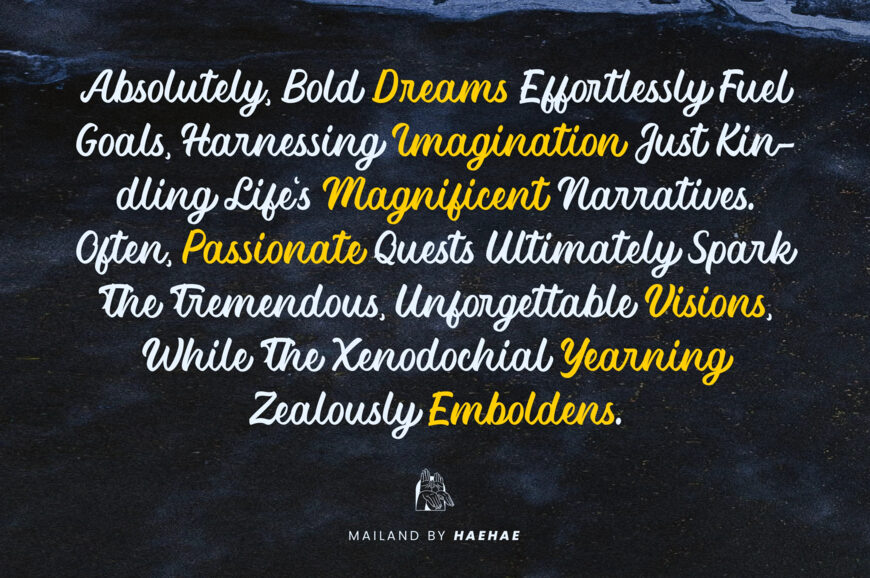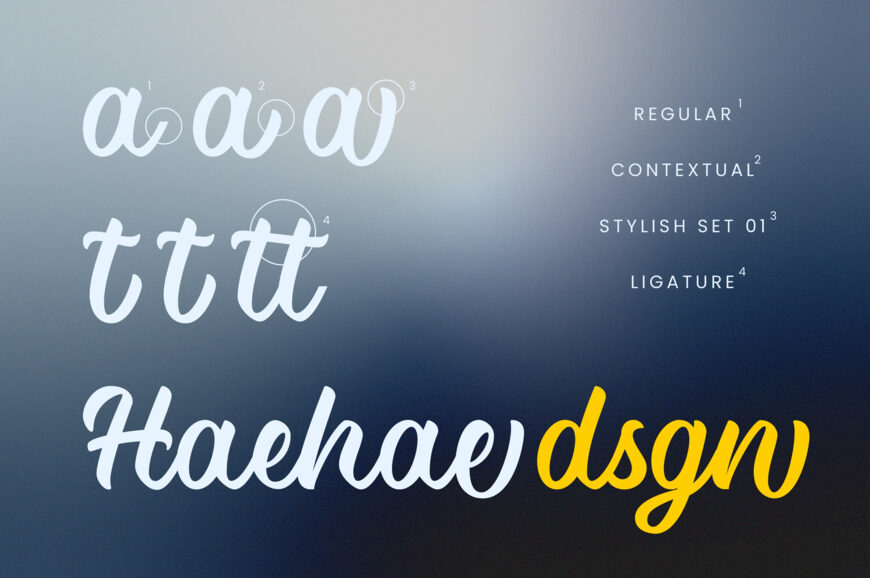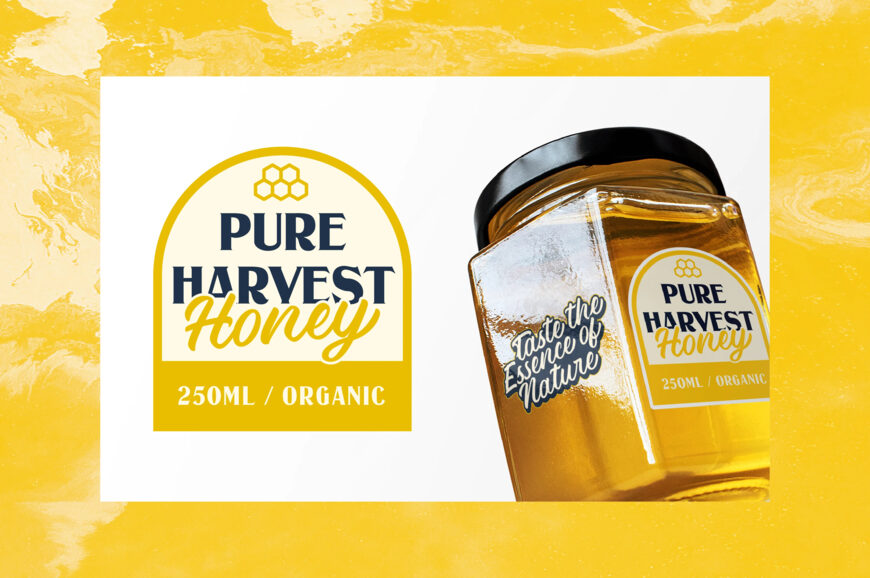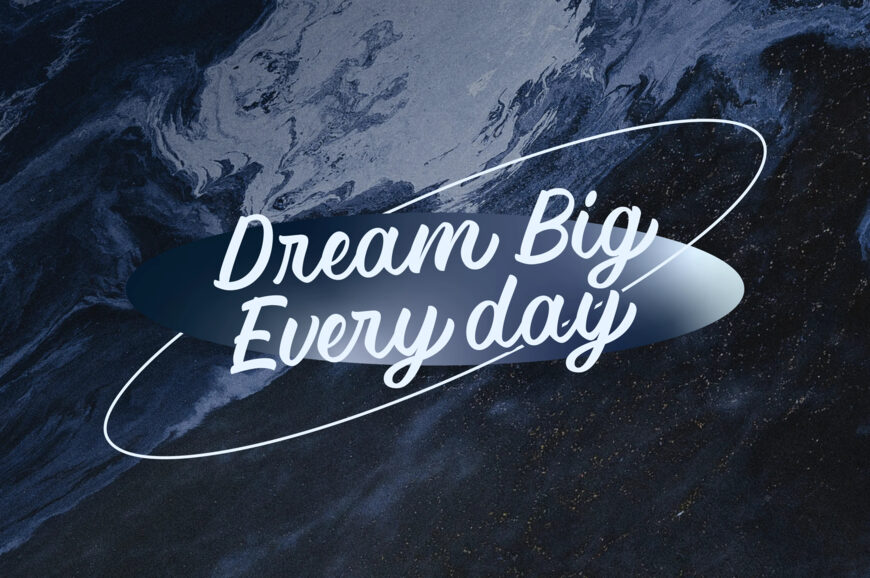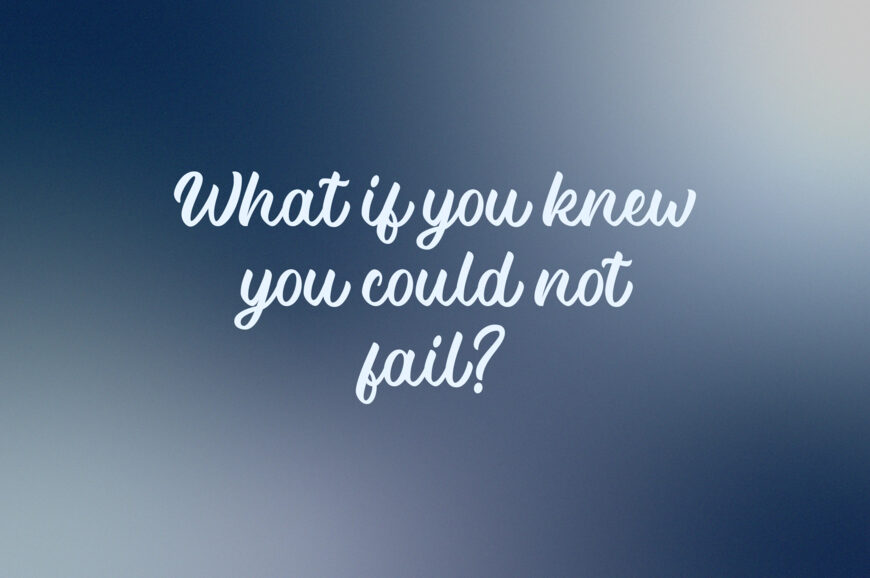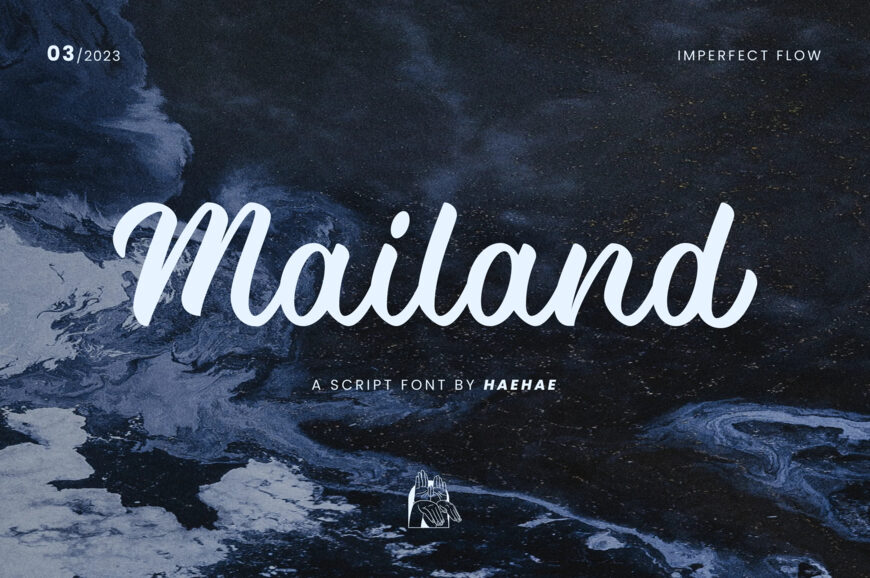
Mailand Font
Mailand is a beautiful script font by Haehae Design. With its clean lines and legible design, Mailand suits a wide range of applications, from invitations to branding.
Designed by: Haehae Design